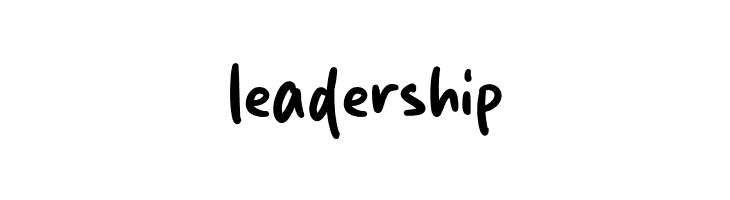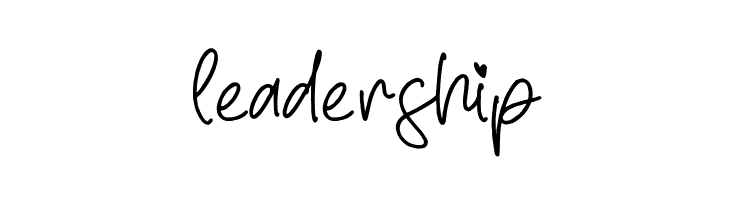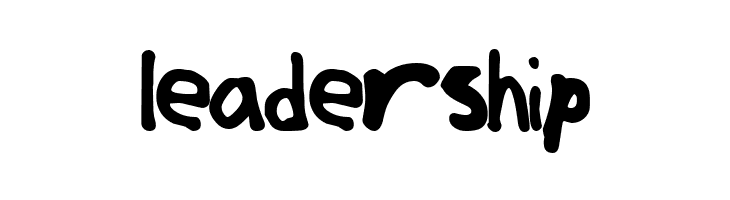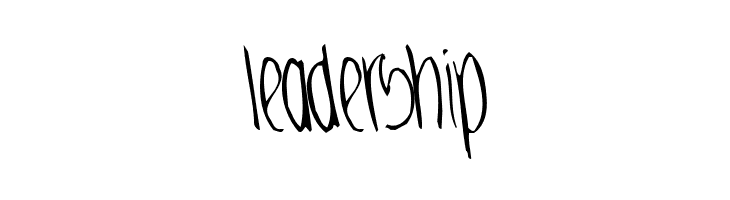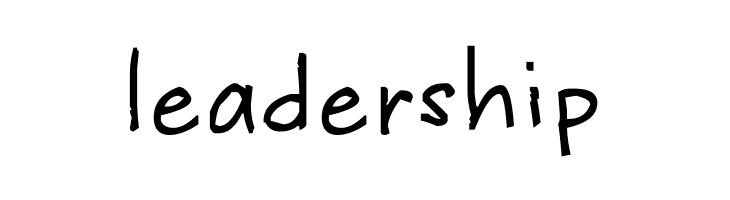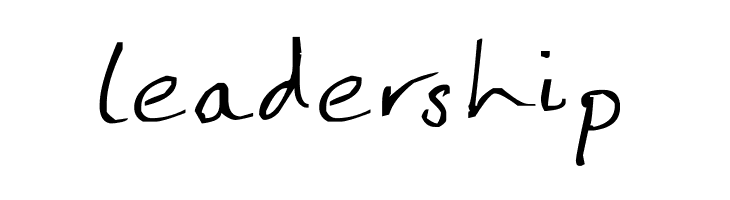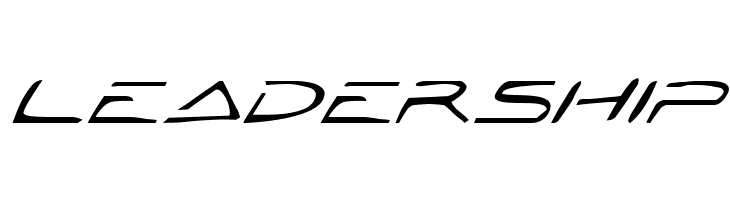
A playful, handwritten font with tall, narrow letters and bold strokes.
A bold, handwritten font with a playful and casual style.
A casual, handwritten font with fluid and organic strokes.
A casual, handwritten font with a dynamic and personal touch.
A casual, handwritten font with an authentic, personal touch.
Playful handwritten font with smooth flow.
A casual handwritten font with rounded, playful characters.
A playful, narrow font with consistent stroke width and a modern, whimsical style.
A playful, whimsical handwritten font with decorative elements.
A flowing, cursive handwritten font with elegant, connected characters.
A playful, handwritten font with irregular strokes and a whimsical style.
Casual, playful handwritten font with whimsical details.
Casual handwritten script font.
Elegant cursive script with a handwritten style.
A graceful script font with fluid, cursive strokes and elegant curves.
A lively handwritten script with expressive, flowing lines.
A playful, casual handwritten font with smooth, flowing lines.
Casual handwritten script with playful, fluid strokes.